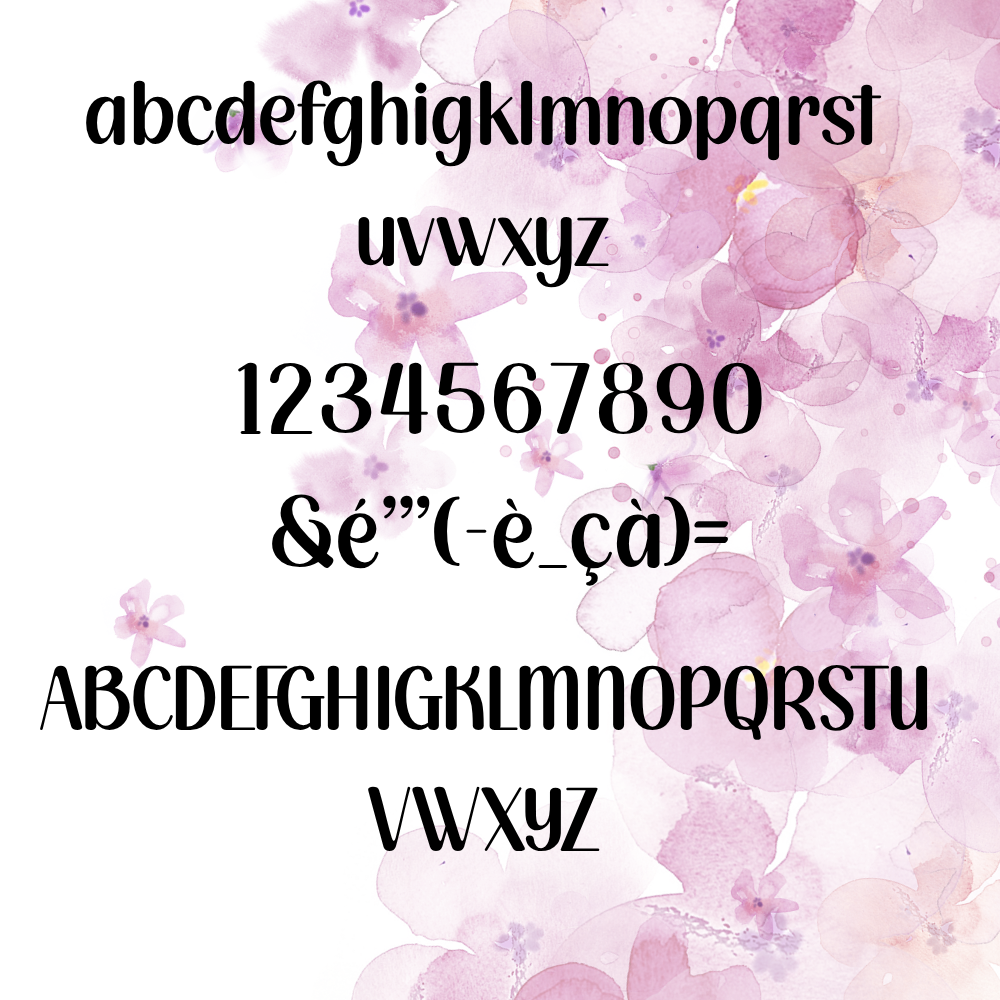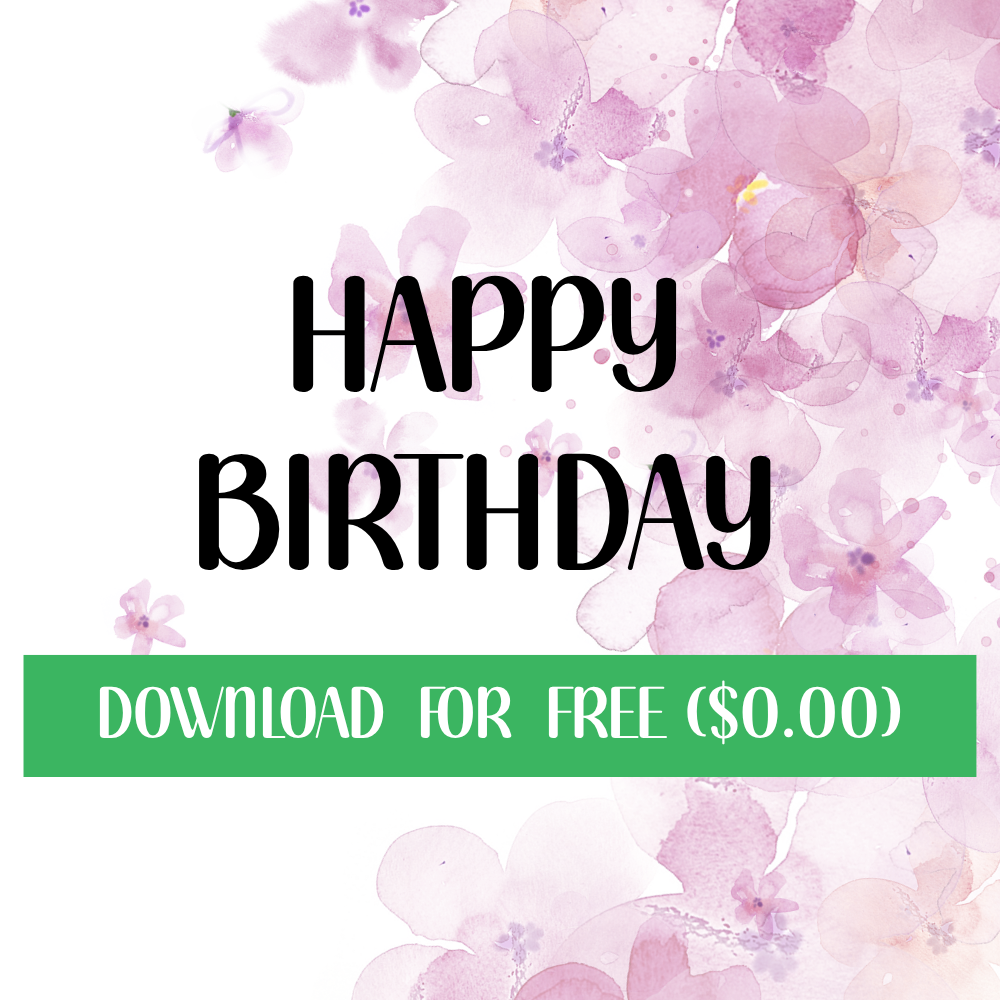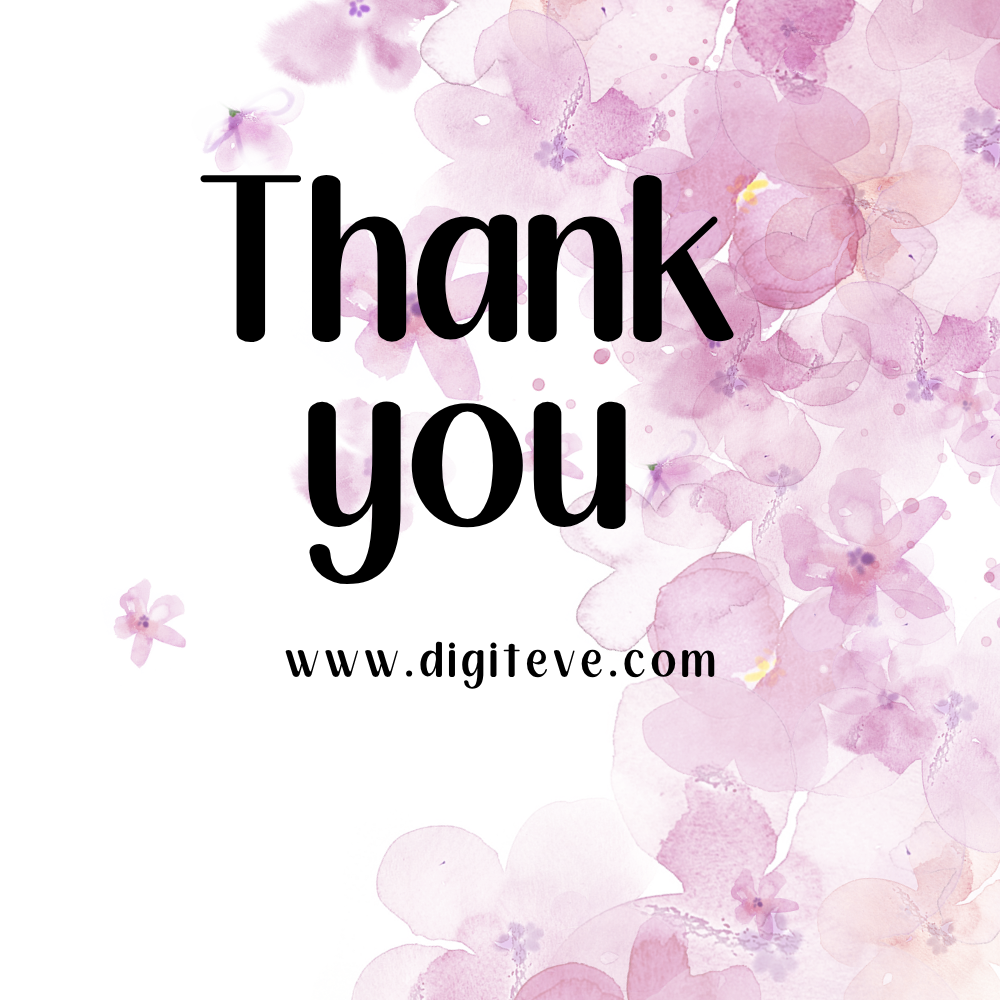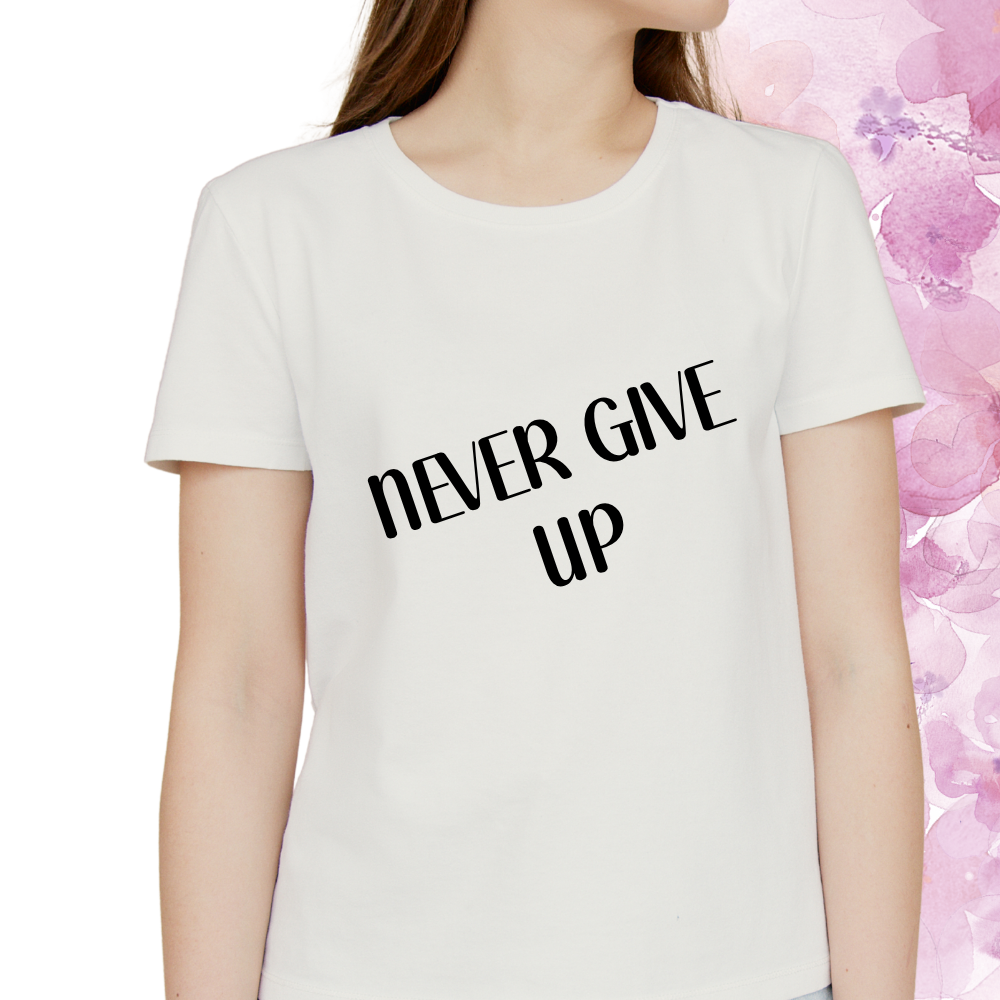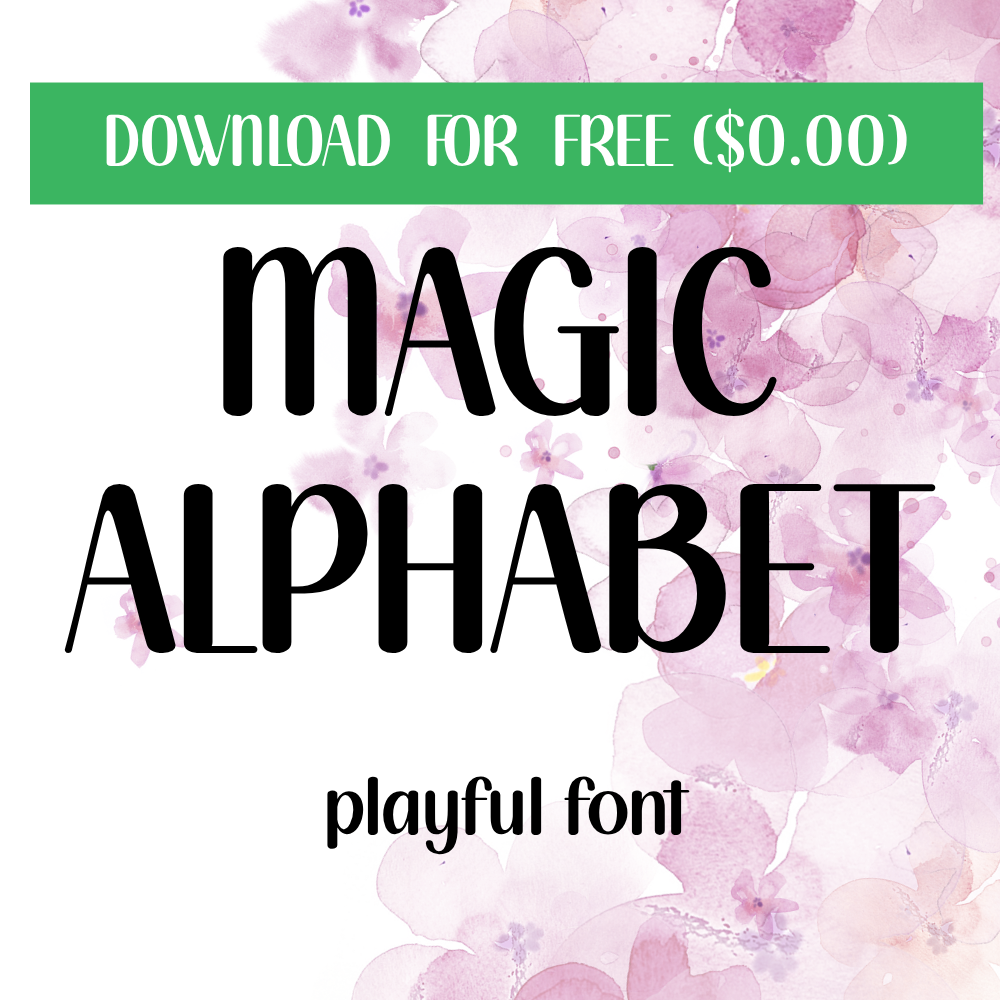
**Magic Alphabet Font** is a charming handwritten font designed to add a creative and personal touch to your projects. Its smooth letterforms and playful style make it ideal for a wide range of digital and print designs.
Whether you’re creating wedding invitations, digital planners, printable wall art, greeting cards, social media posts, branding materials, or Cricut projects, this font helps your designs stand out with a unique handcrafted look.
#### Perfect For:
* Digital Planners
* Printable Wall Art
* Wedding Invitations
* Greeting Cards
* Social Media Graphics
* Logos & Branding
* Scrapbooking
* Cricut & Silhouette Projects
* Stickers
* DIY Crafts
Add a magical handwritten touch to your creative projects with the Magic Alphabet Font.